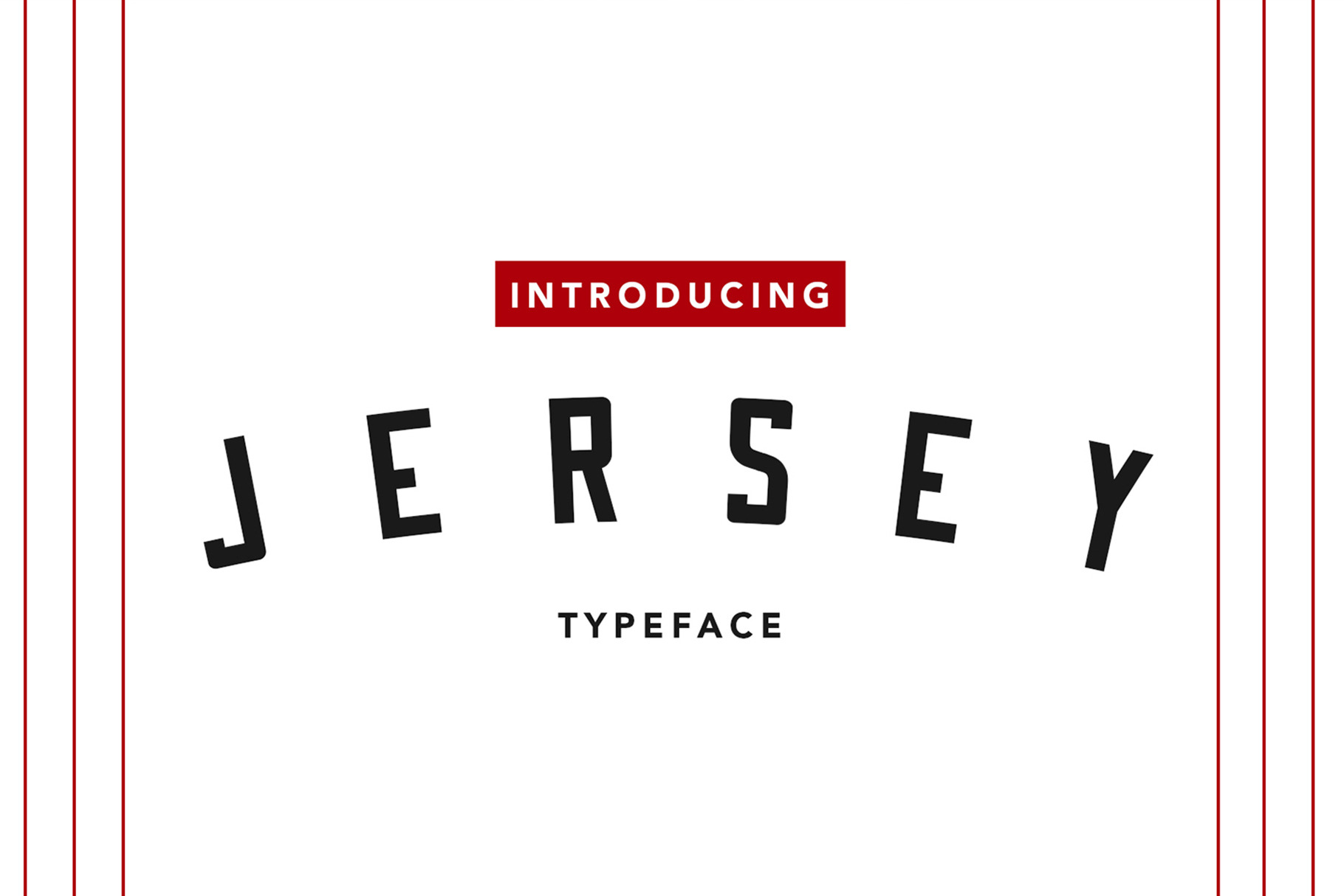
Jersey Typeface
Inspired by world class athletes, this display font touts showmanship. Jersey Typeface is versatile and perfect for any design (Logo Design, Sports Design, Team Brand Identities, Video Editing, Jersey Design, Flyers, Posters, Headlines, Performance Products, etc.)